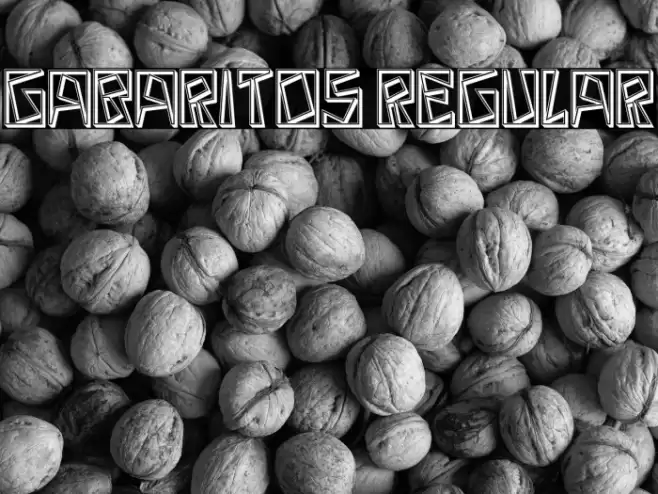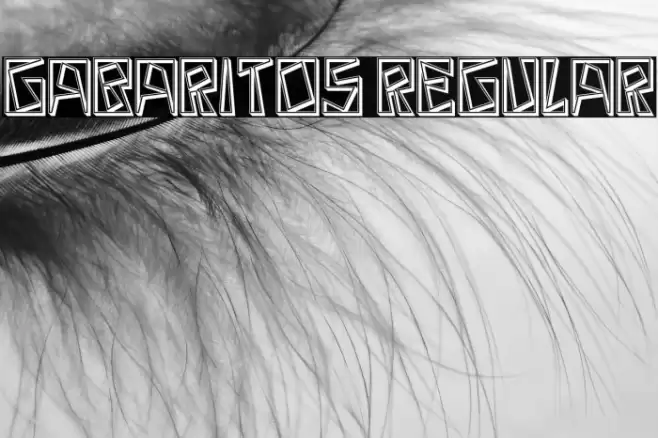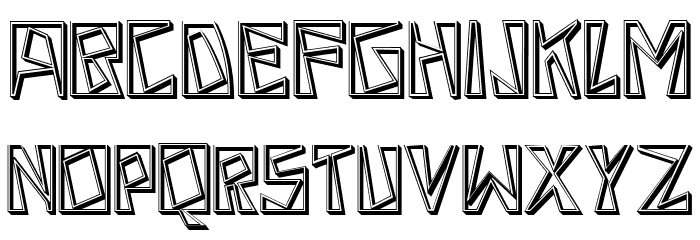
Gabaritos Regular Font
Gabaritos Regular Description
This font features a bold, geometric design with a three-dimensional effect created by overlapping lines and shapes. The letters are uppercase and have a distinct, angular appearance, giving them a modern and edgy look. The intricate line work within each character adds depth and complexity, making it stand out in any design. The font's unique style is both artistic and structured, making it suitable for creative projects that require a strong visual impact. Its boldness and geometric nature make it ideal for attention-grabbing headlines or logos.
A bold, geometric font with a three-dimensional, angular design from Uncategorized fonts.
- Proposed Projects: Ideal for modern branding, logos, posters, and headlines that require a striking visual presence.